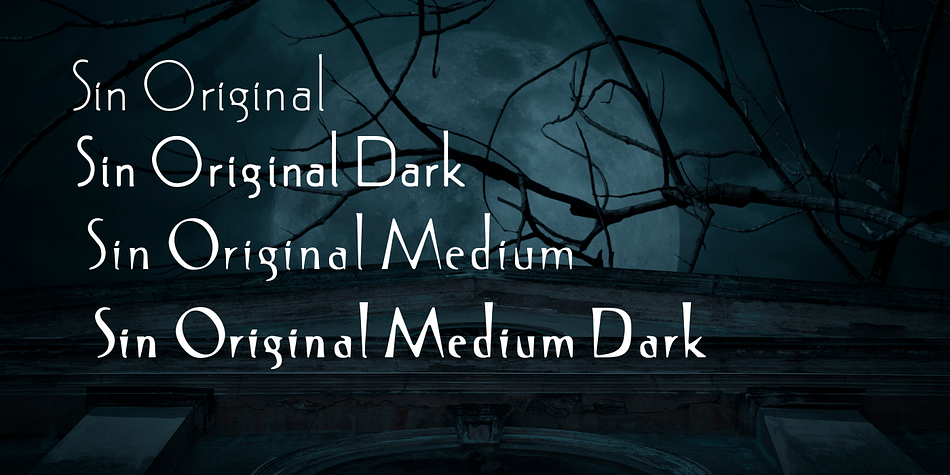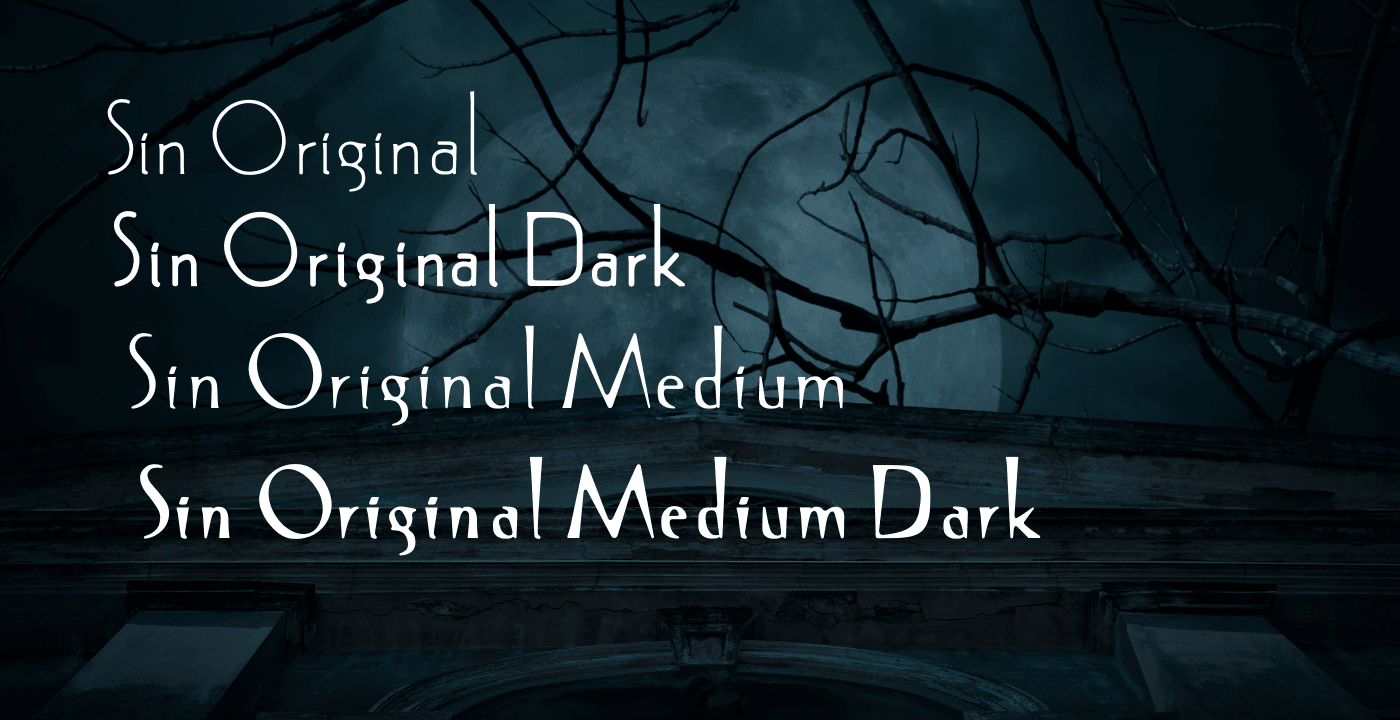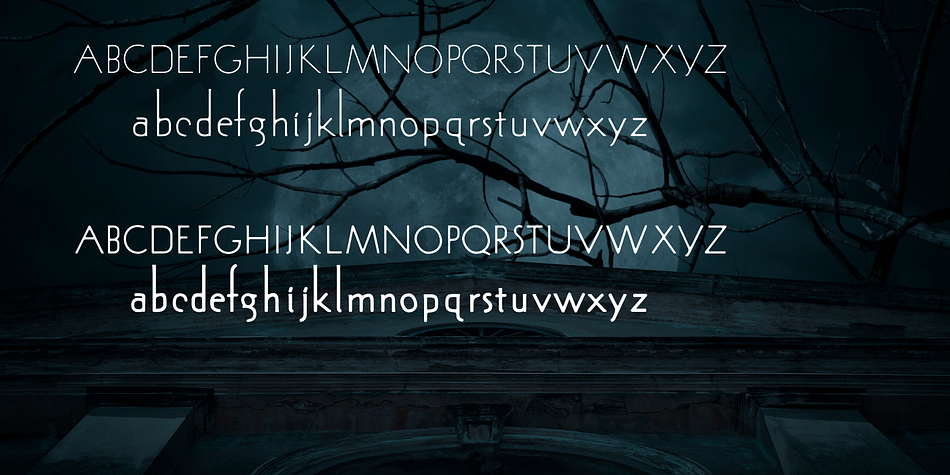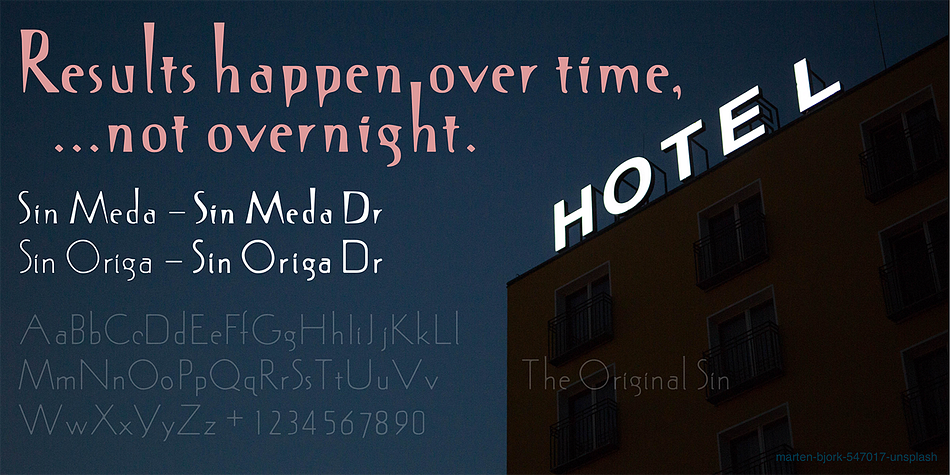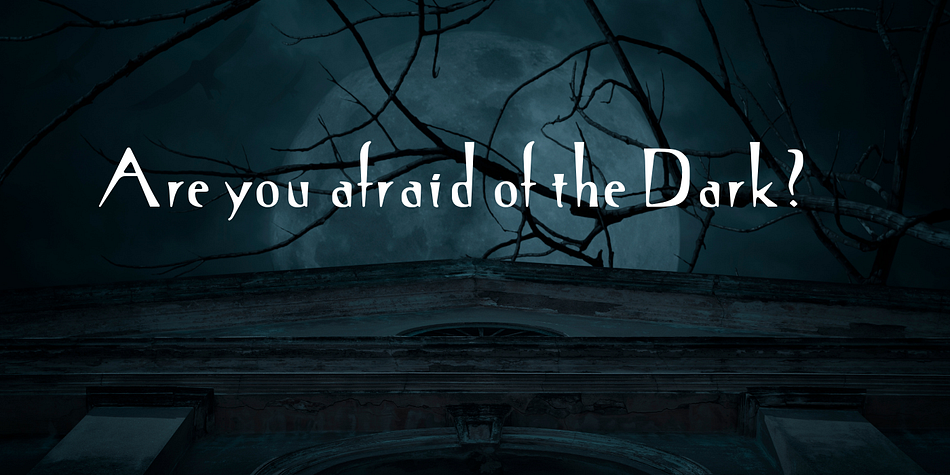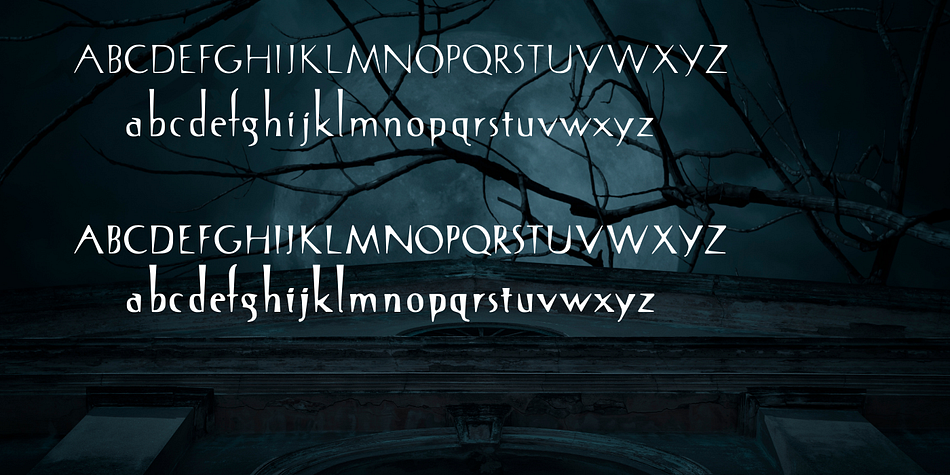
Sin Original
Designed by Mondrey Sin, Sin Original is an art deco and display sans font family. This typeface has four styles and was published by FontHaus.
Loosely inspired by the designs of Rudolf Koch and his Koch Antiqua, Sin Original Dark by Mondrey Sin is a curious monoline display face with small x-heights, and large caps. The design almost looks 1920s vintage. Interesting for book Jackets, editorial, and as drop caps.